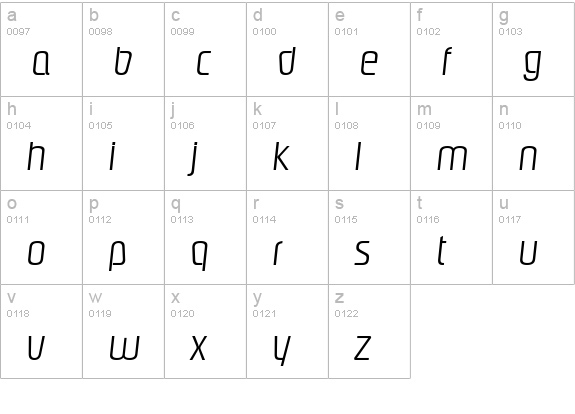
PasadenaSerial-Light-Italic is a refined, elegant, italic variant in the PasadenaSerial typeface family \xE2\x80\x94 well suited to elegant body text, refined sub-headings, and luxury branding.
PasadenaSerial-Light-Italic is a delightful and elegant font that exudes sophistication and charm. With its sleek and modern design, this typeface is perfect for adding a touch of style to any project. The italicized letterforms give a sense of movement and grace, making it ideal for conveying a sense of elegance and refinement. The clean lines and graceful curves of PasadenaSerial-Light-Italic make it versatile for a variety of design applications, from branding to editorial design. Whether you're working on a website, a magazine layout, or a logo, this font will bring a touch of class to your project. Best of all, PasadenaSerial-Light-Italic is available for free download at FontsMarket.com. So go ahead and add this beautiful typeface to your collection today and elevate your designs with its timeless appeal.